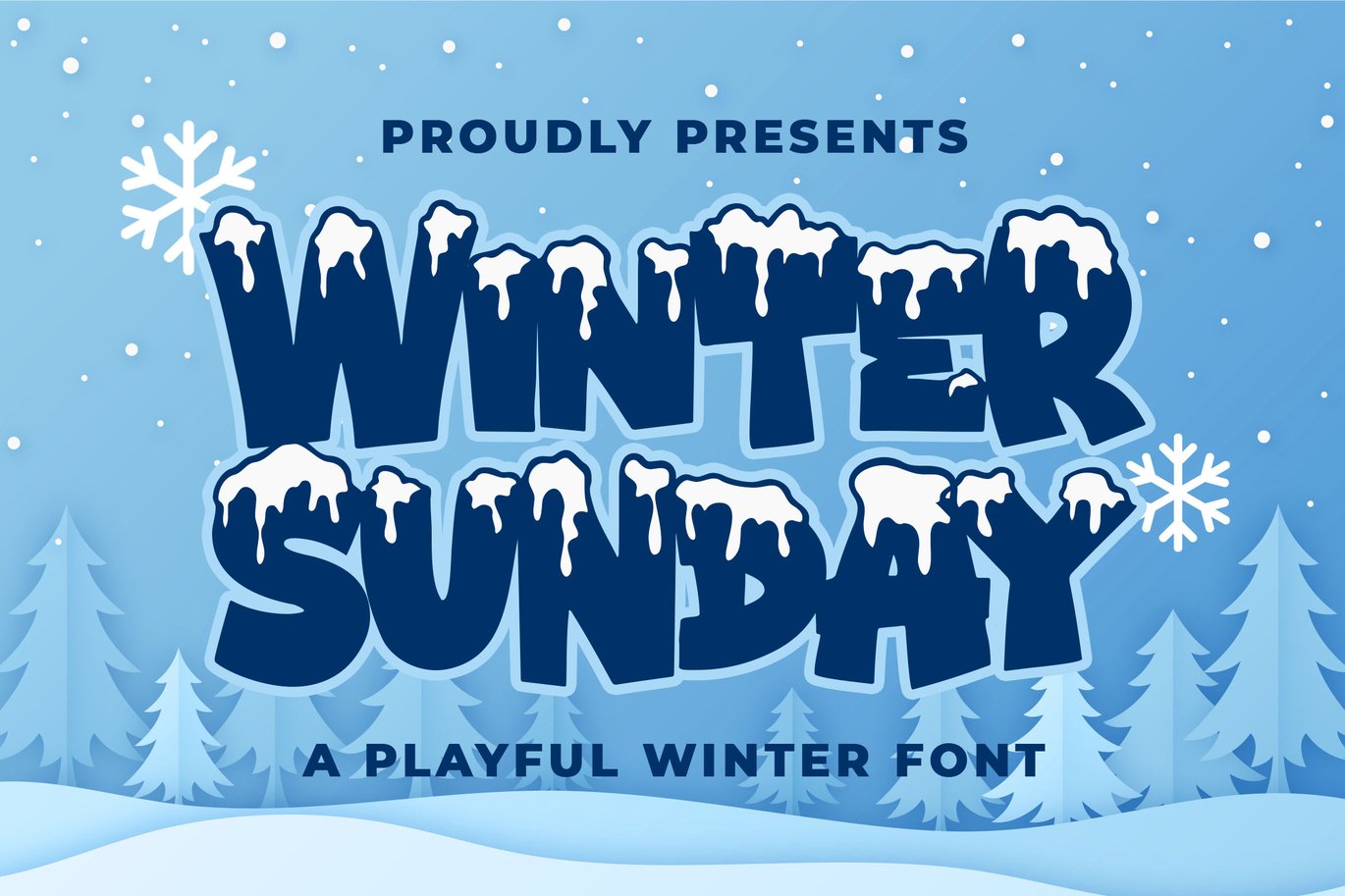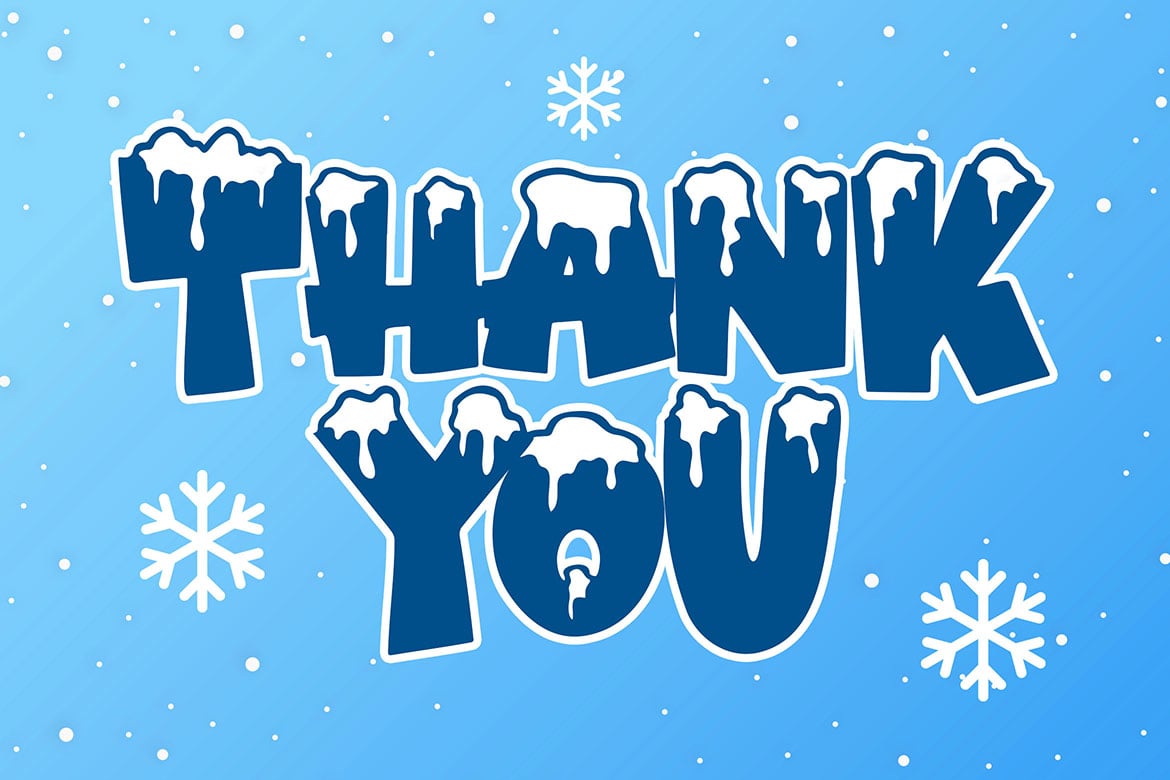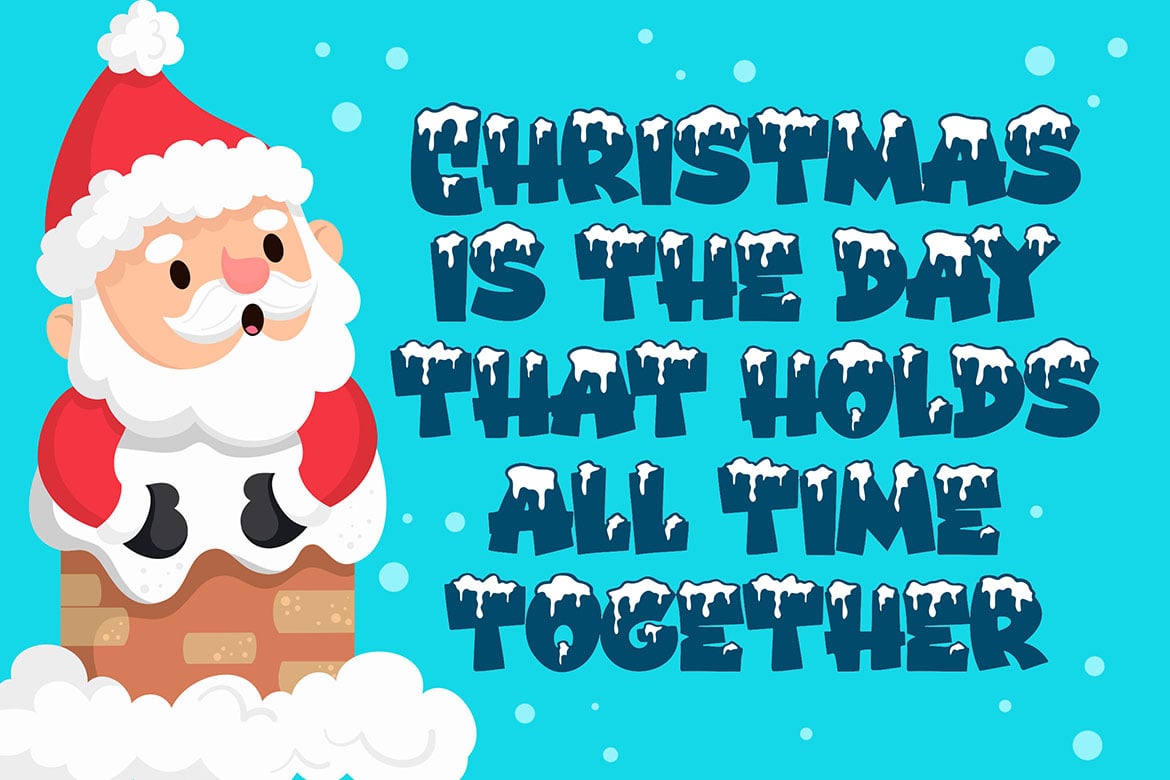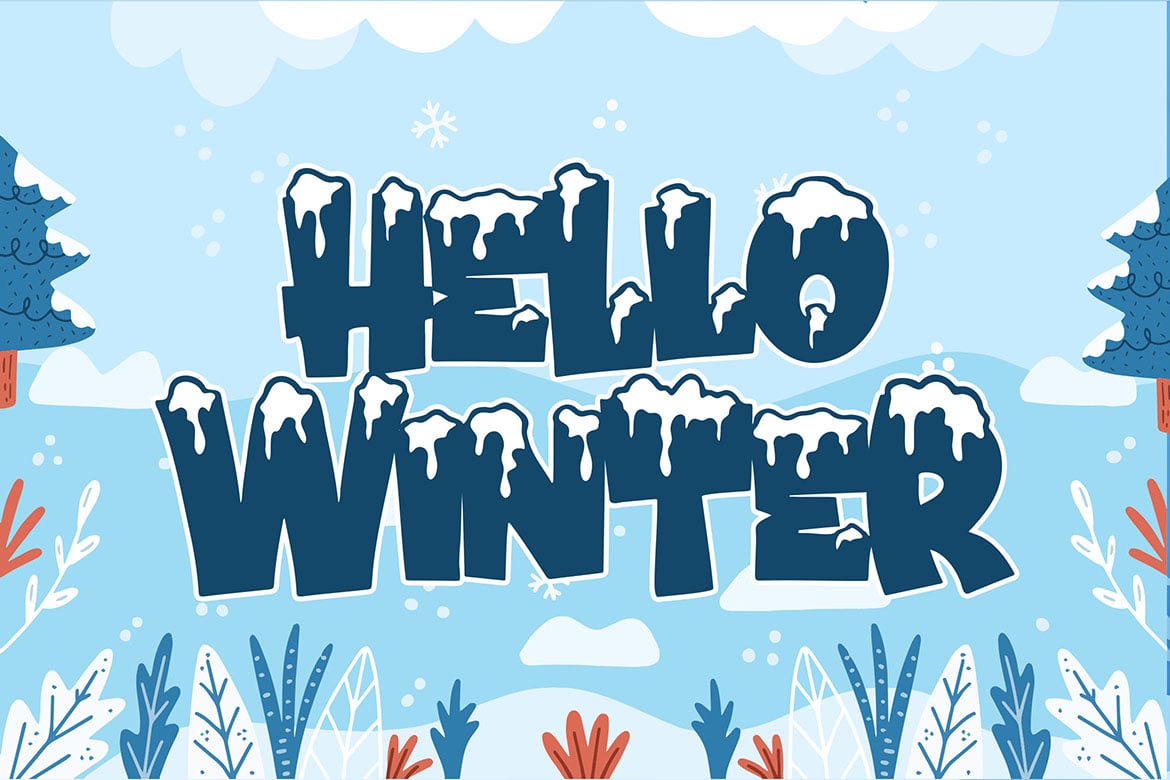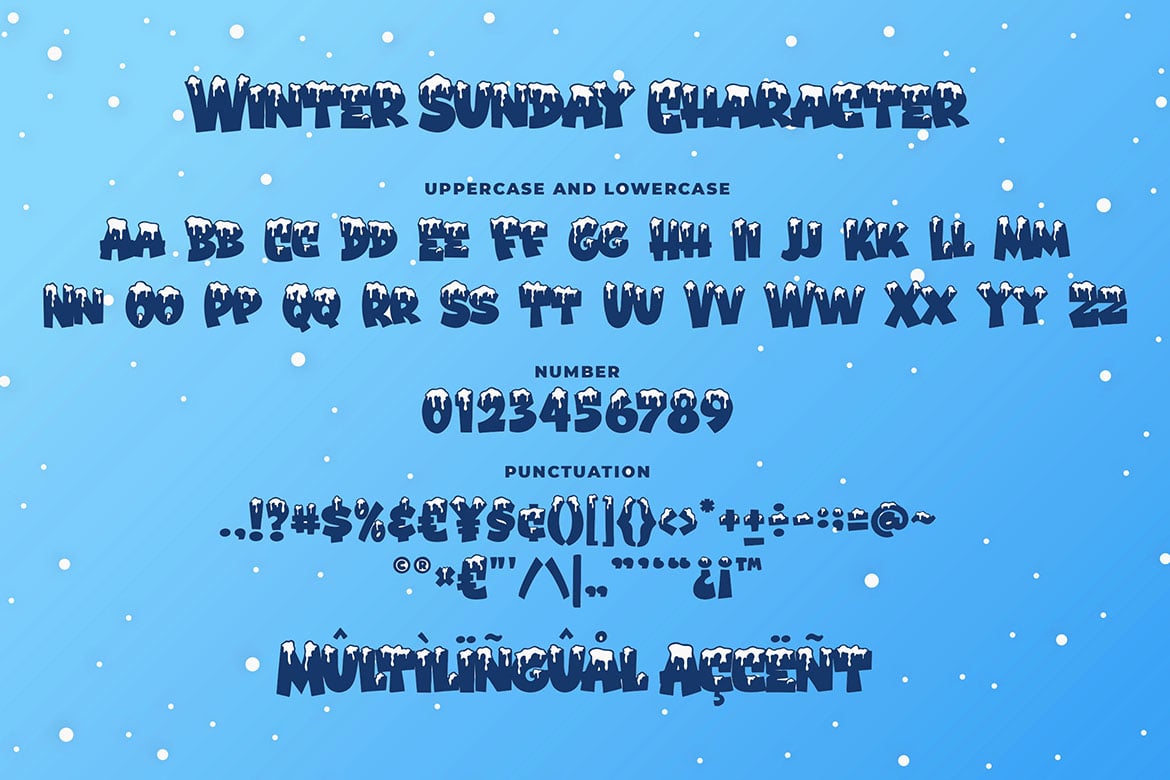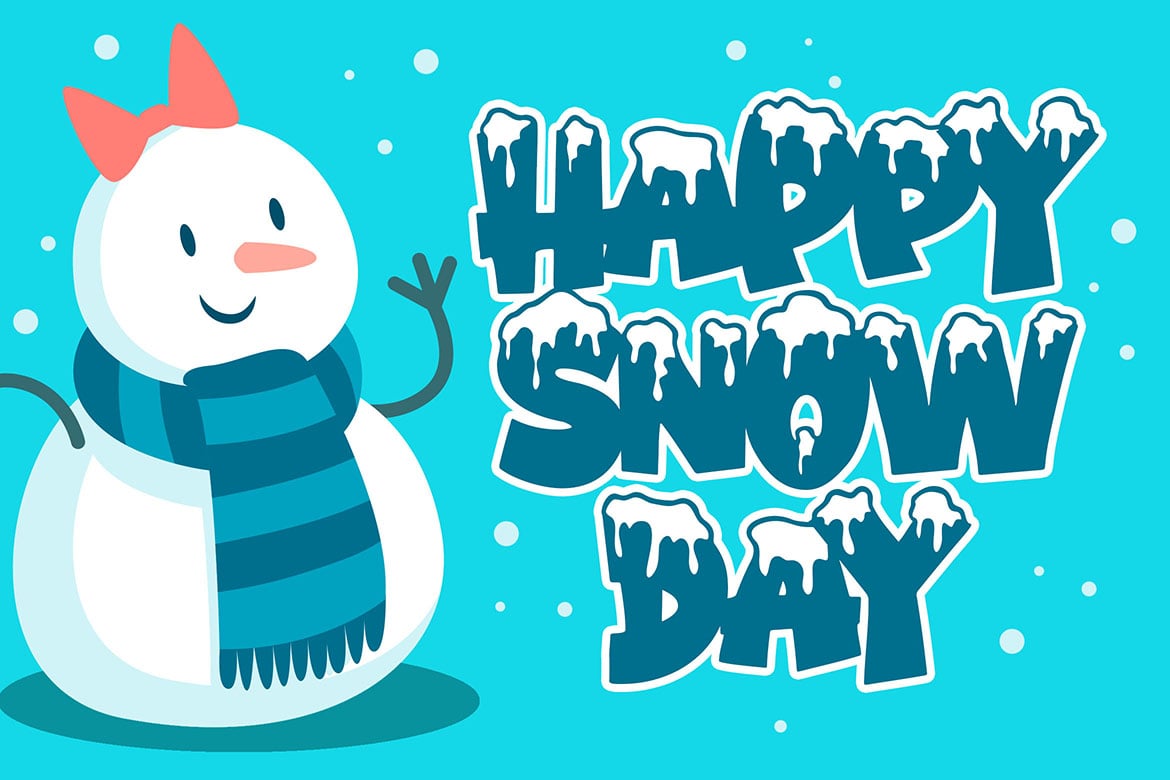
Winter Sunday a Playful Winter Font
Winter Sunday a Playful Winter Font, Inspiring from playful and winter style typography. Winter Sunday font is perfect for a design that makes it more attractive and playful. made with a very good level of aesthetics making this font suitable for winter theme, christmas, book cover, children book, comic, poster, packging, merchandise, logotype and much more.